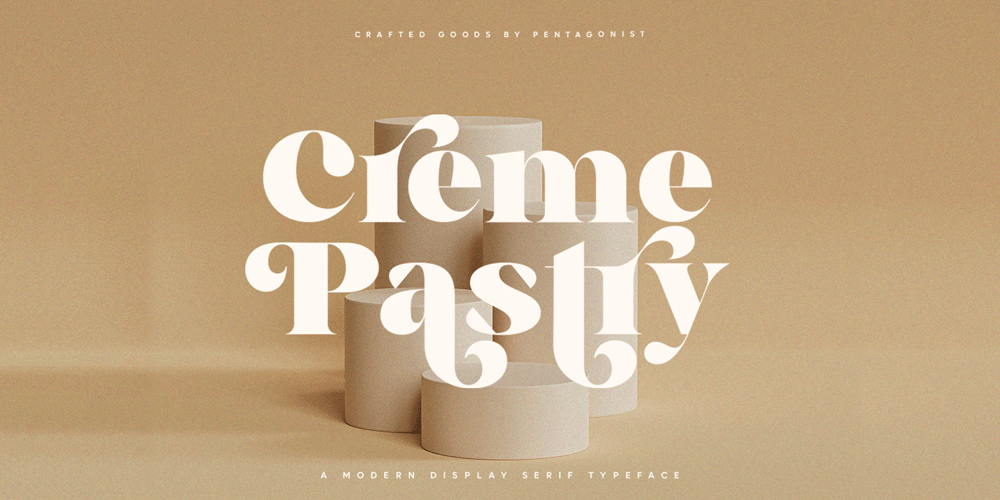
Creme Pastry
Creme Pastry font
Creme Pastry Font Family was designed by Burhan Adiatma and published by pentagonistudio. Creme Pastry contains 1 styles and family package options. Creme Pastry Is A Modern Display Character Inspired By Stylish and Cheek Style.SOFTWARE REQUIREMENTS :Fonts and alternate : No special software required they may be used in any basic program /website apps that allows standard fonts That’s it folks! You can go ahead and get cracking :)Follow My Shop For Upcoming Updates Including Additional Glyphs And Language Support. And Please Message Me If You Want Your Language Included or If There Are Any Features or Glyph Requests, Feel Free to Send me A Message. Have a Good Day !